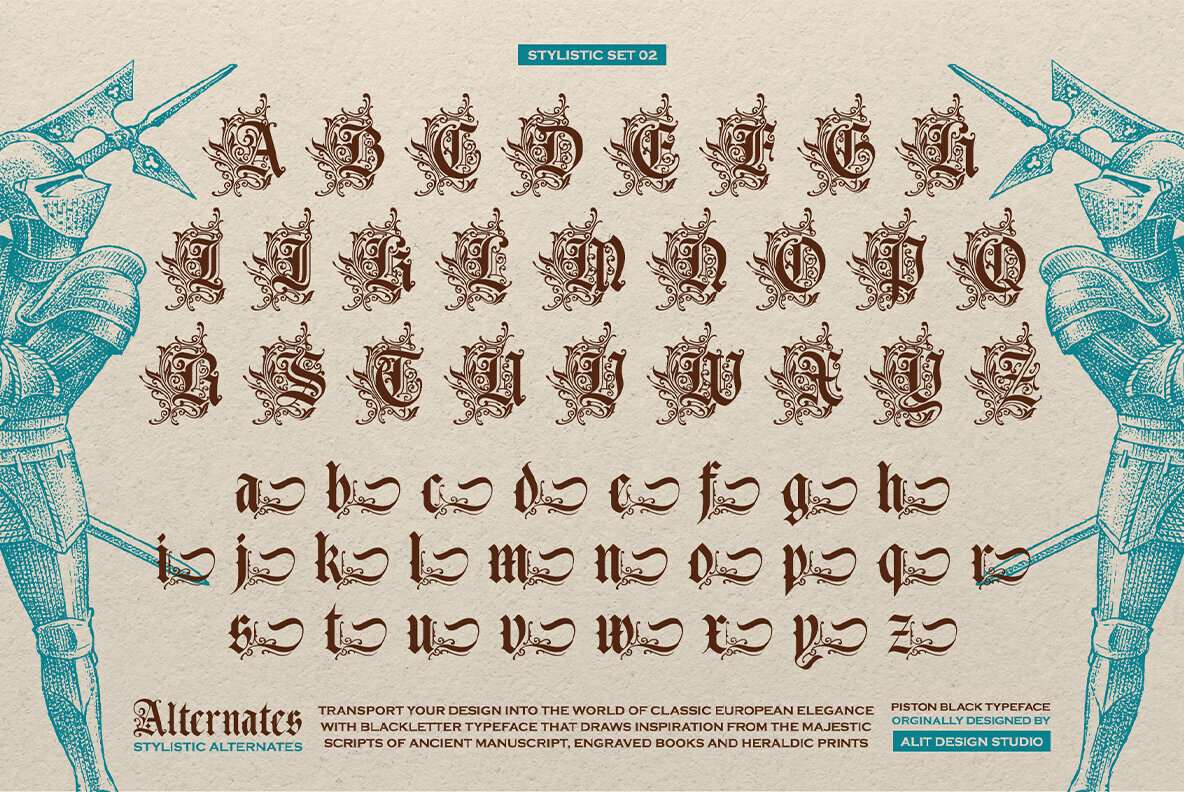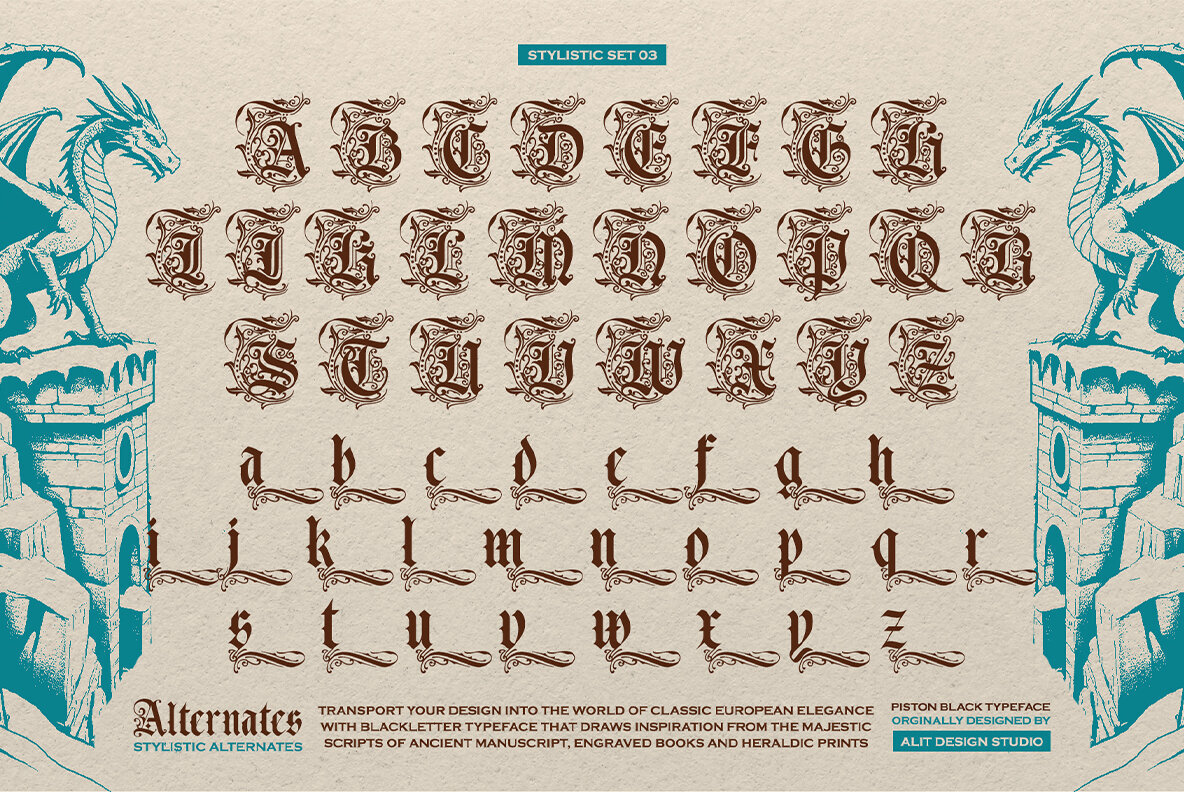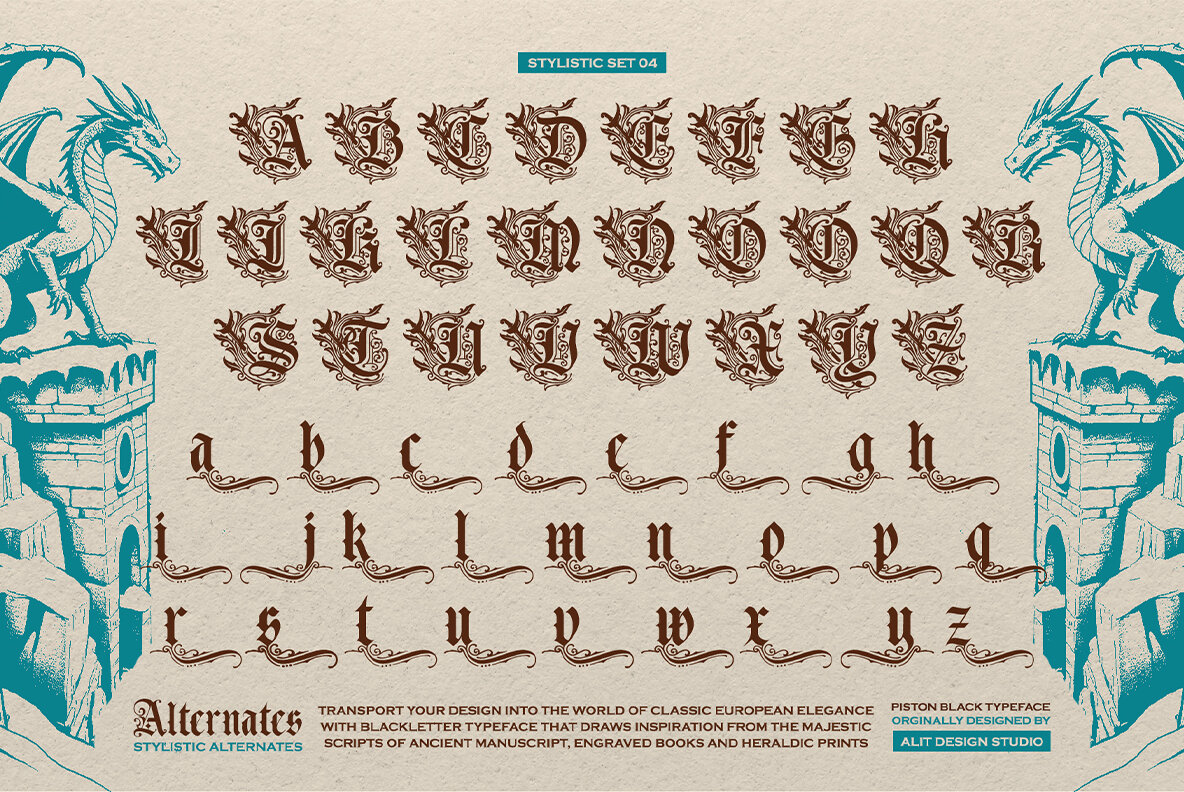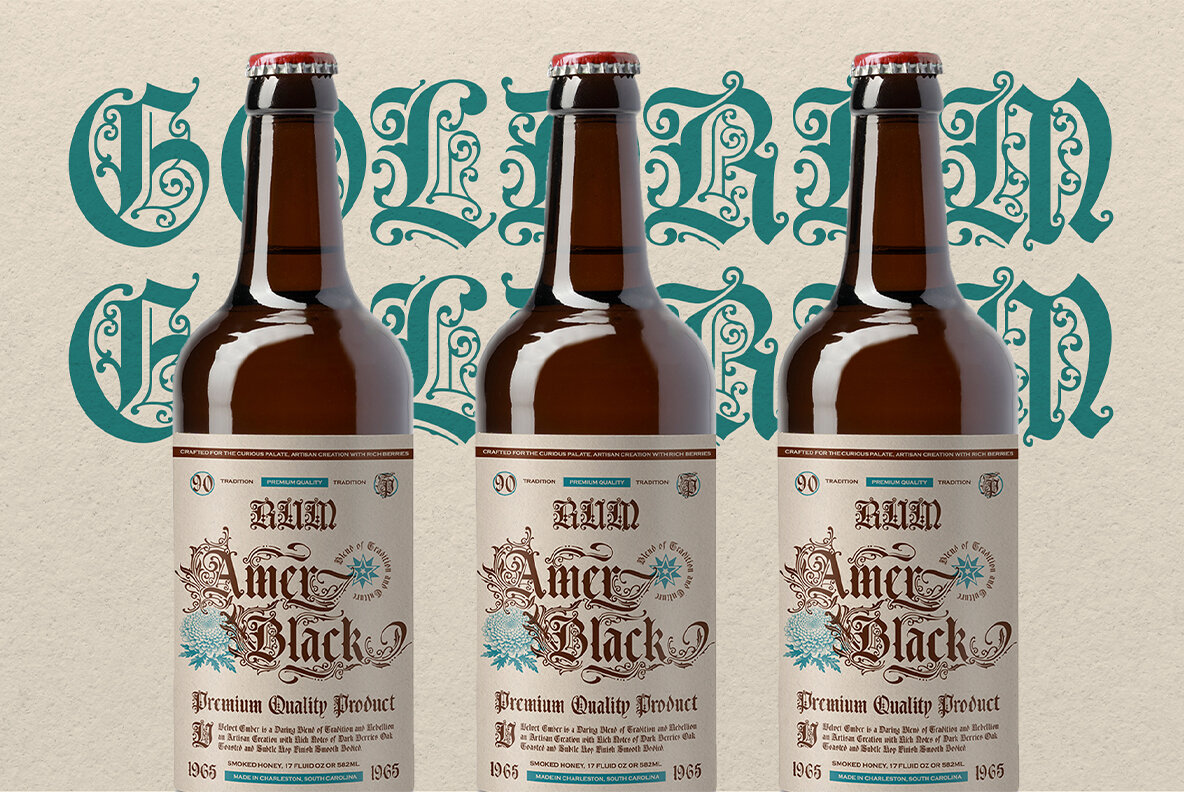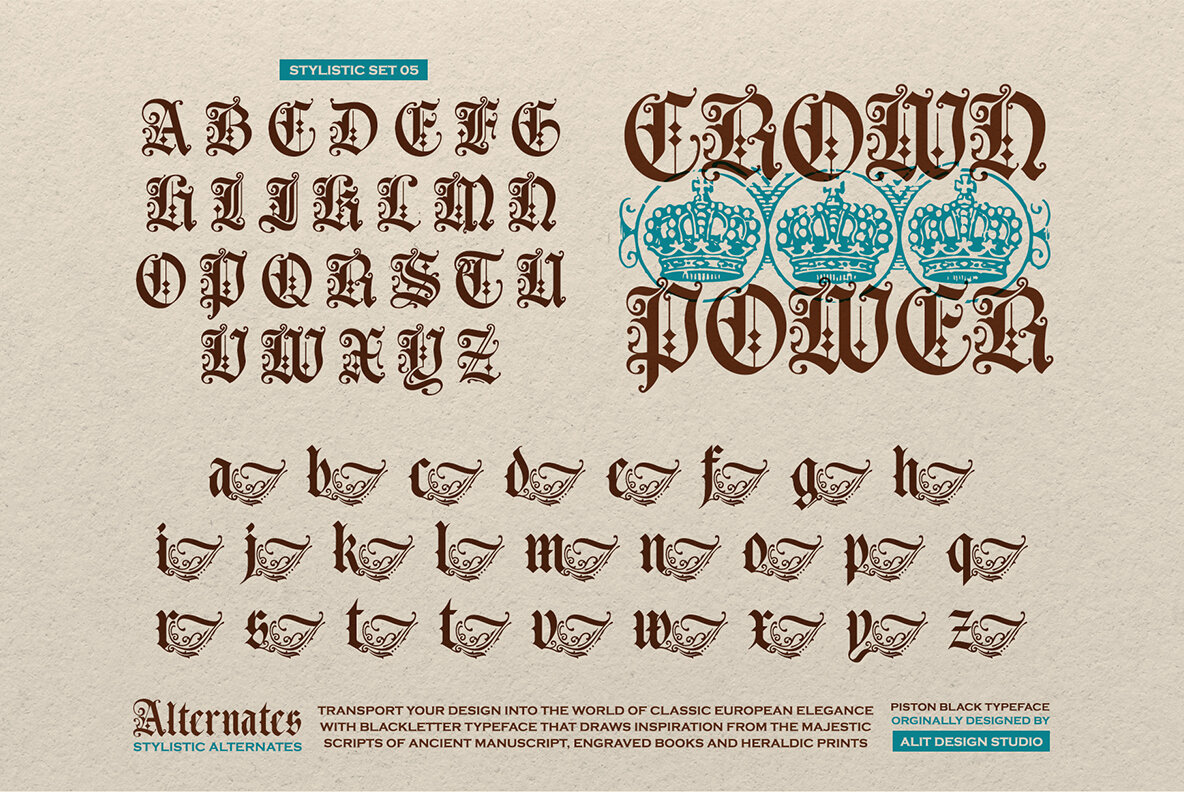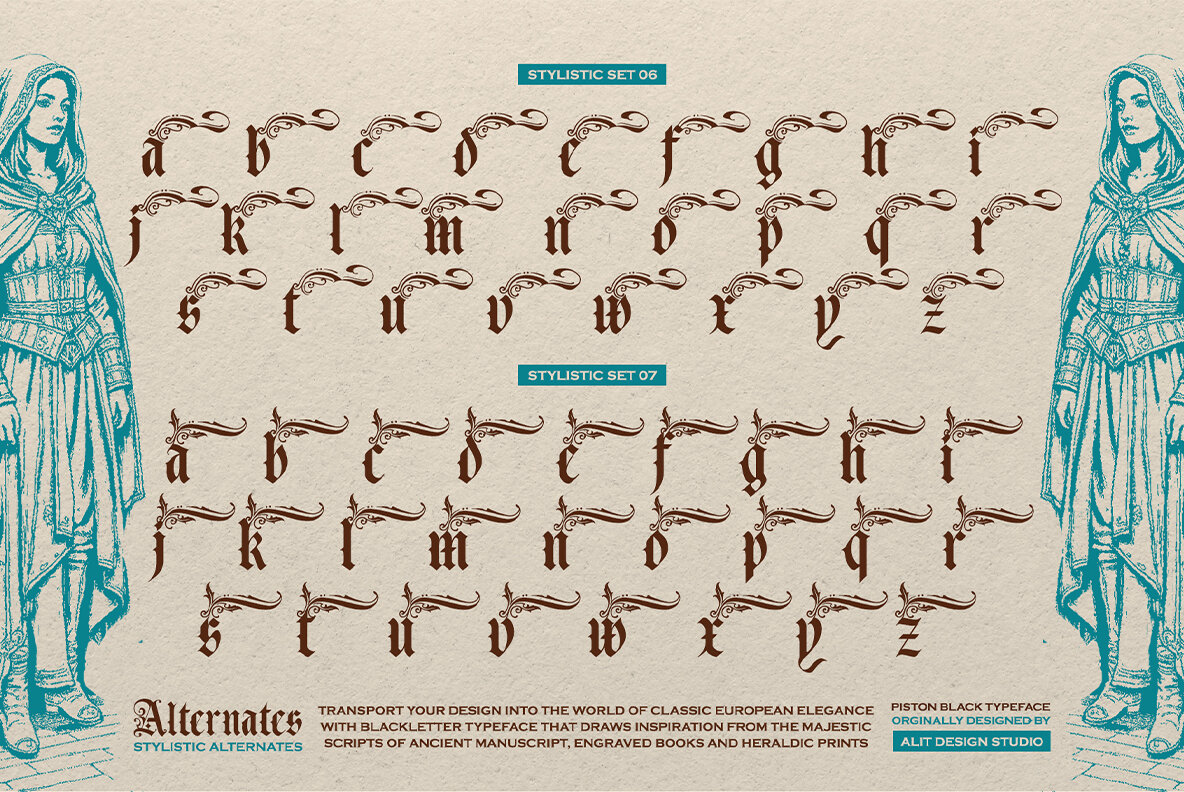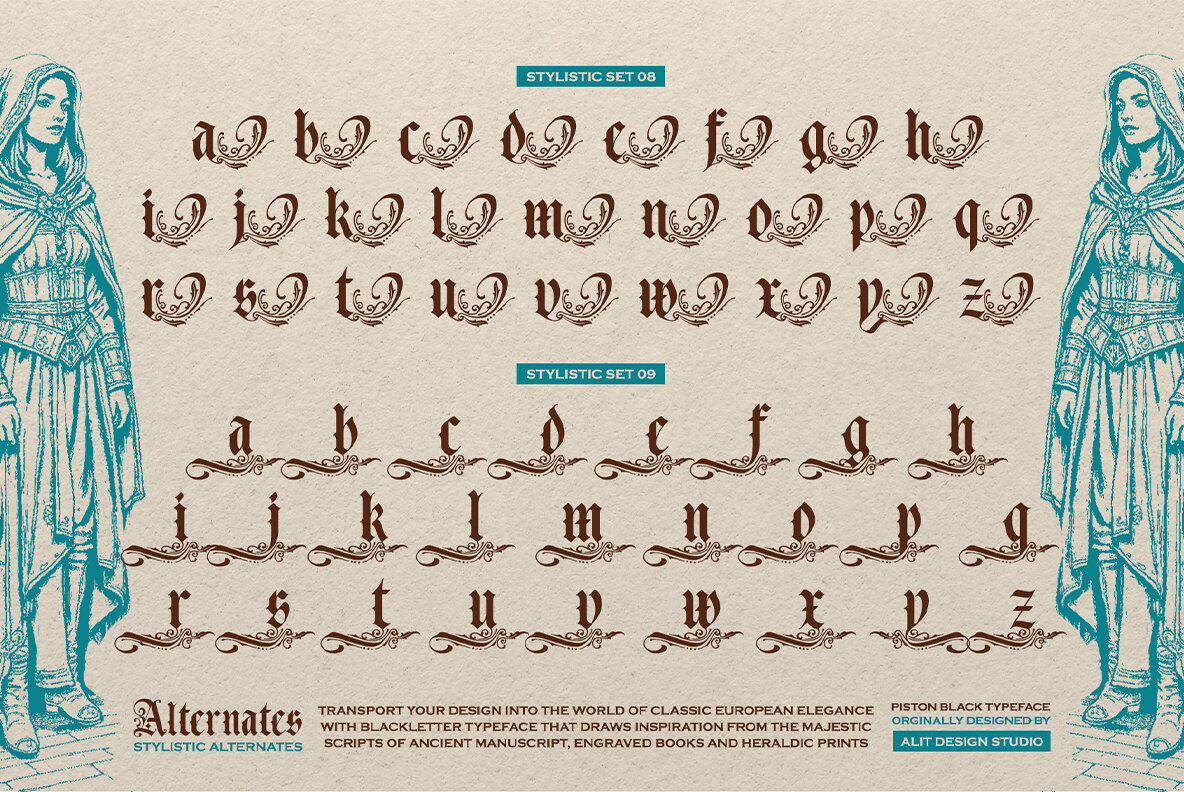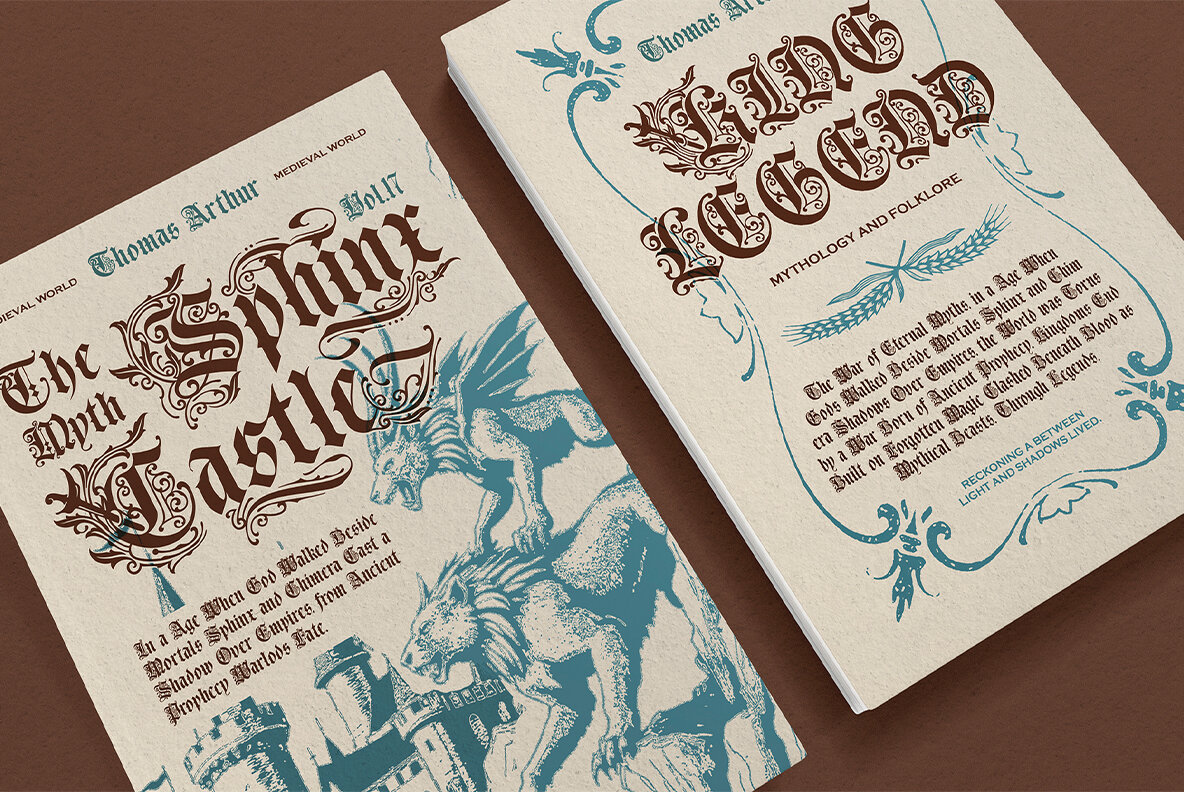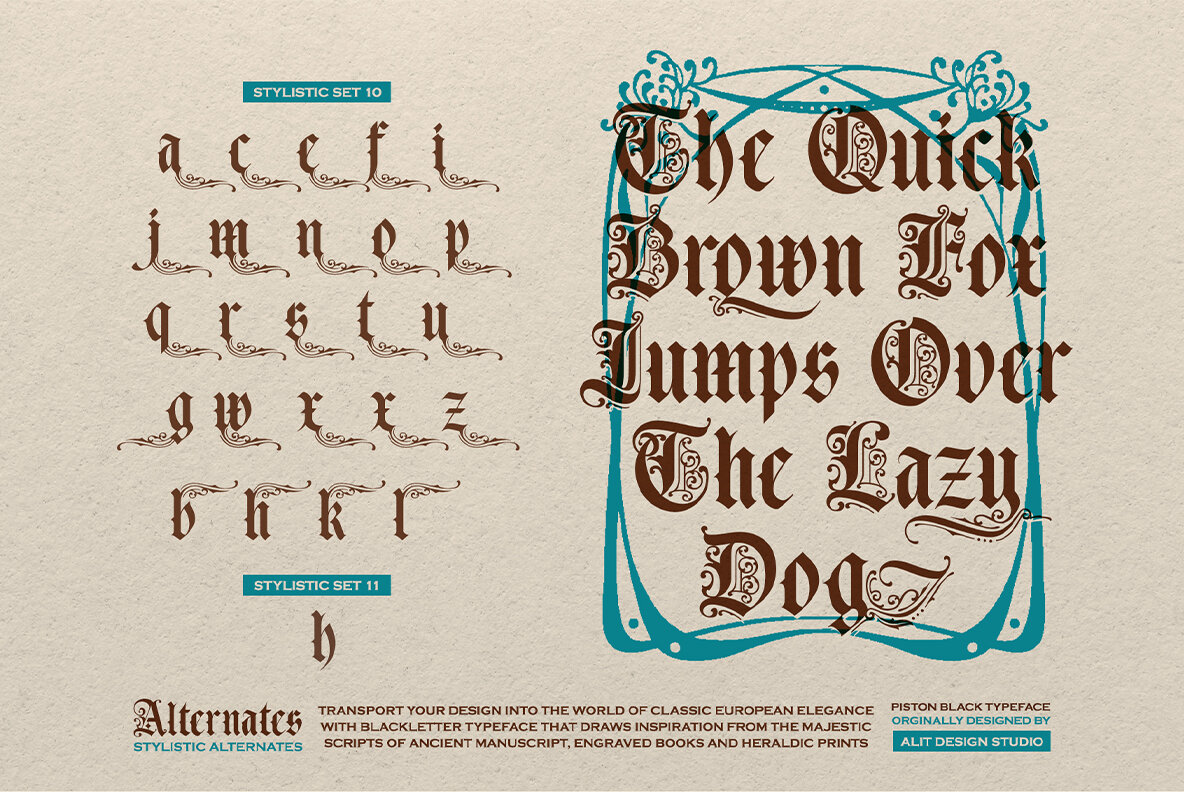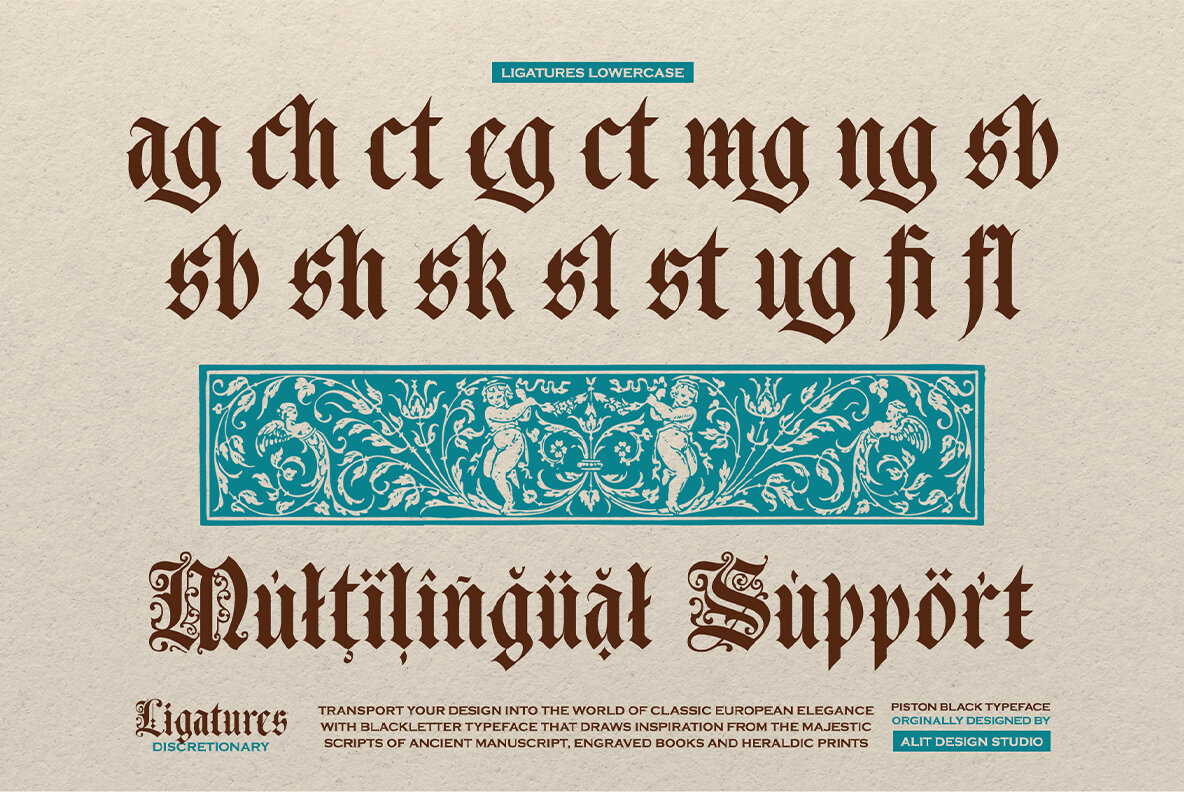
Piston Black Font
Piston Black Regular
Piston Black is an intricately-designed blackletter ornament typeface that captures the allure of medieval manuscripts and the majestic charm of gothic engravings. Its elegant structure epitomizes sophistication and strength, making it an impeccable choice for branding, packaging, editorial layouts, book covers, and ceremonial documents. Developed with precise craftsmanship, Piston Black offers a fusion of traditional blackletter architecture and decorative flourishes, resulting in a typographic experience that resonates with artistry and attention to detail. Whether you're designing for a vintage event, a metal band, or an artisanal product, Piston Black delivers visual impact with its baroque details and regal aura.Piston Black Typeface: Classic Elegance with Ornamental Detail